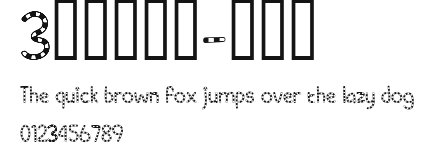
3代呼吸英文-花棒体 Preview
About 3代呼吸英文-花棒体.ttf
3代呼吸英文-花棒体.ttf is a modern, elegant sans-serif font designed for ultimate readability and visual harmony. Perfect for branding, headlines, web design, and print materials.